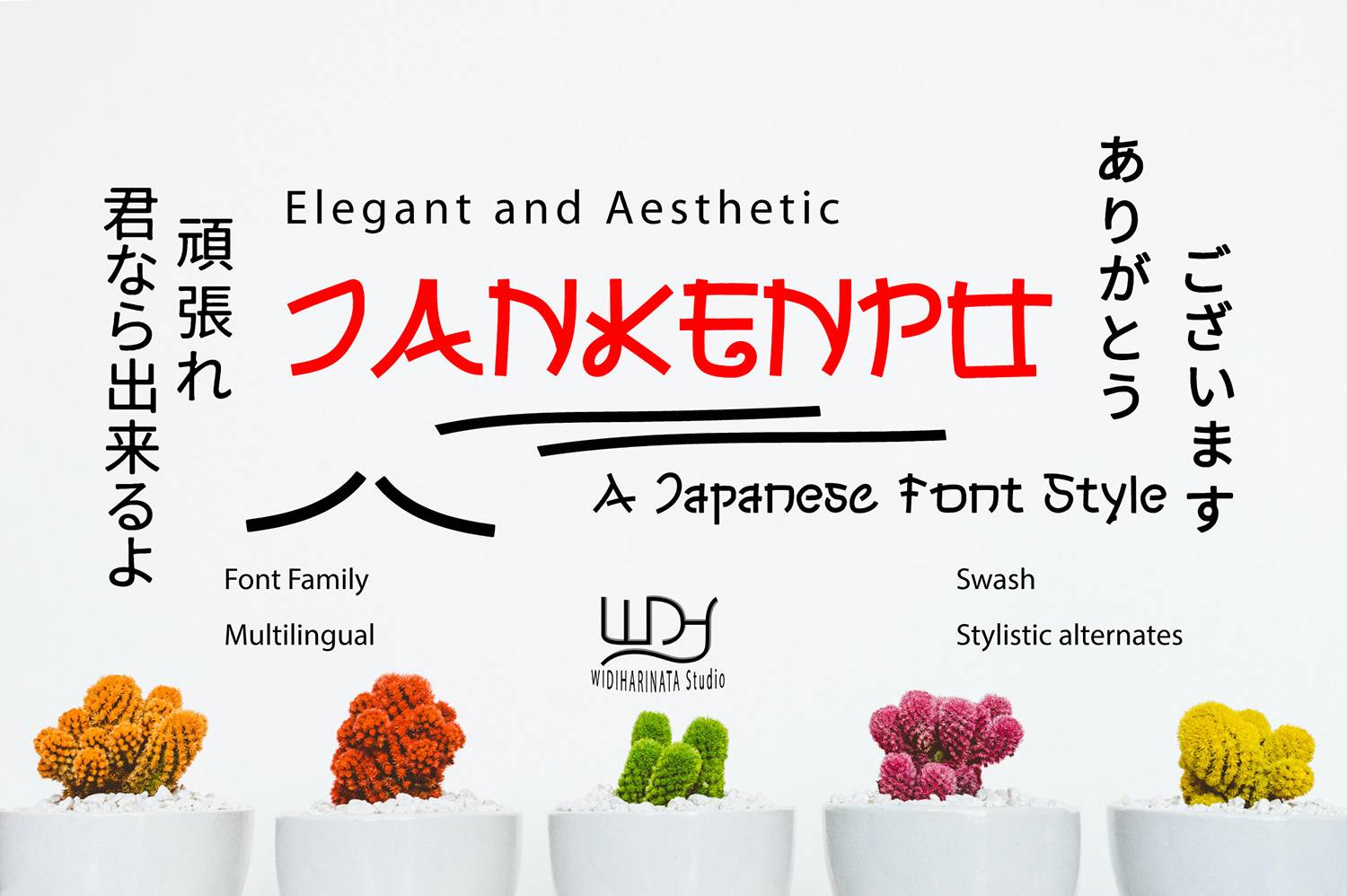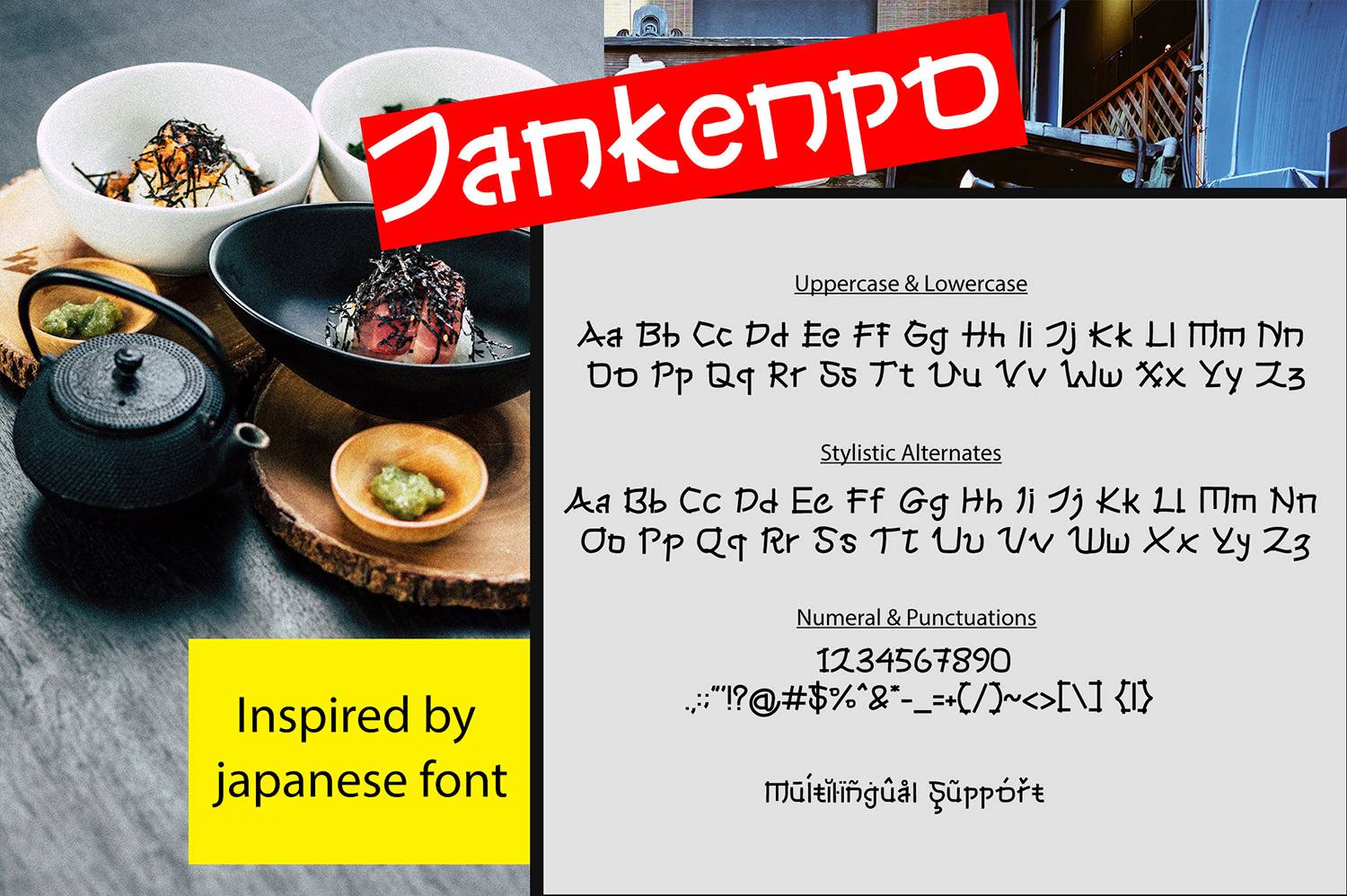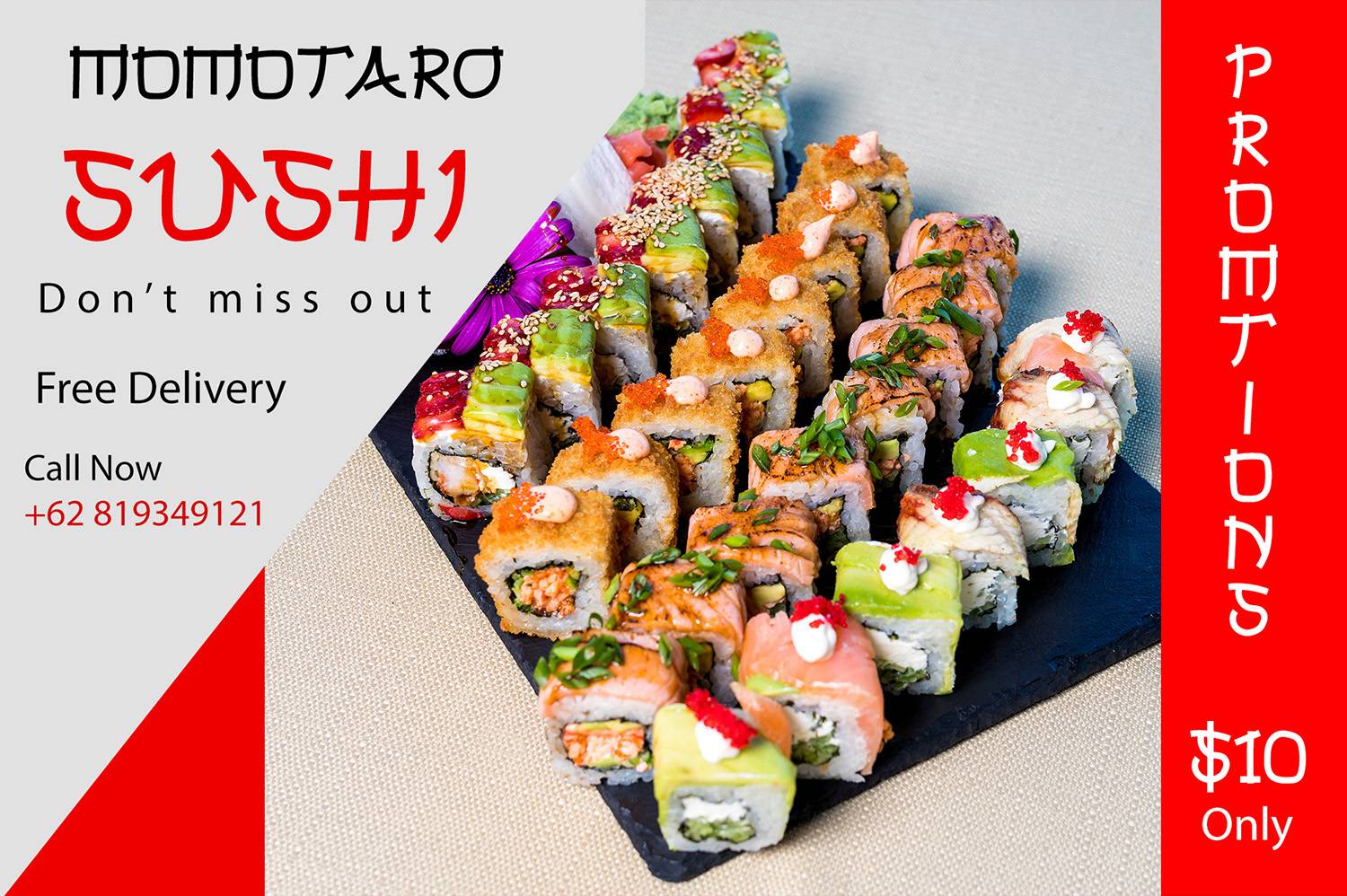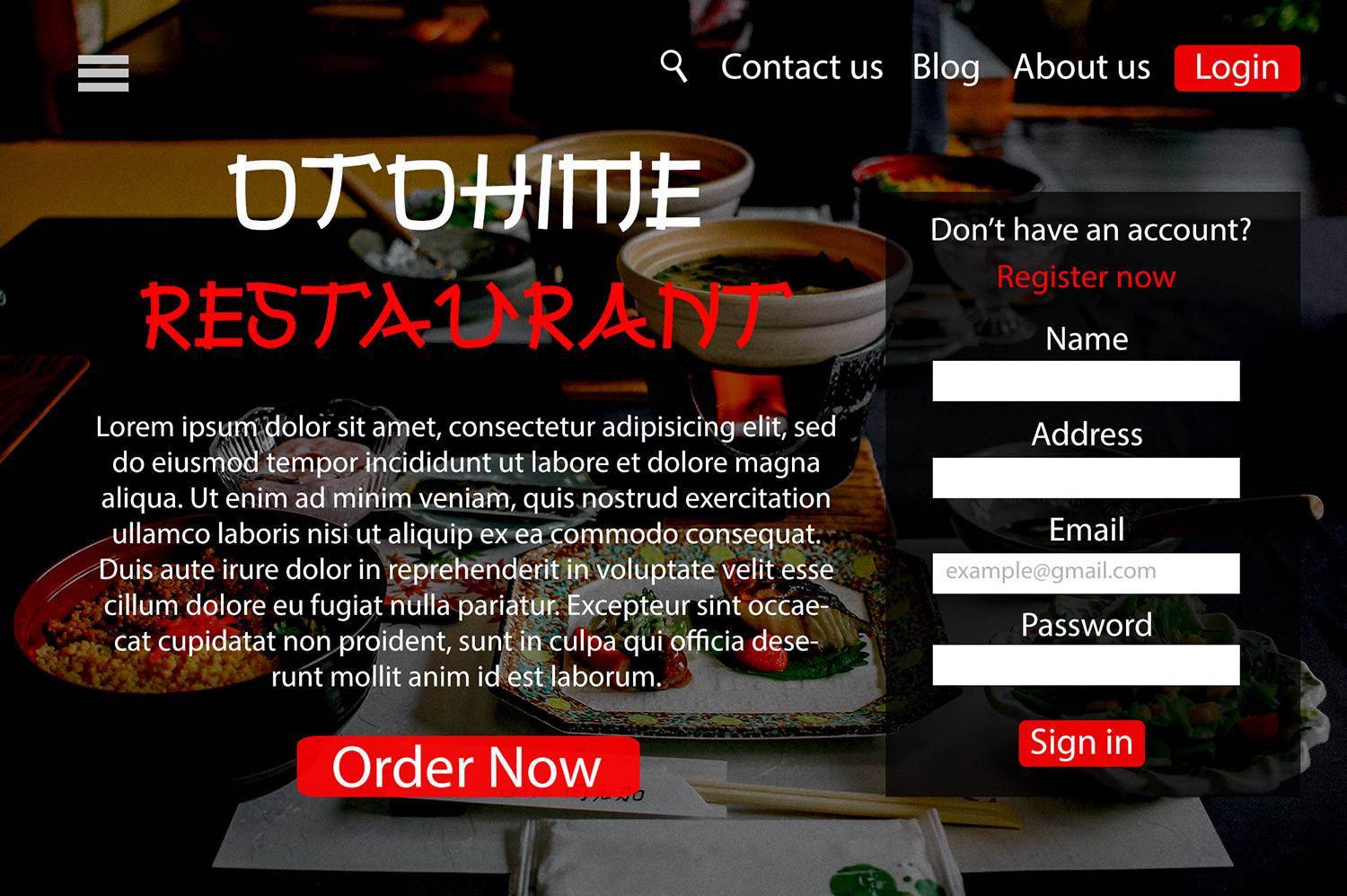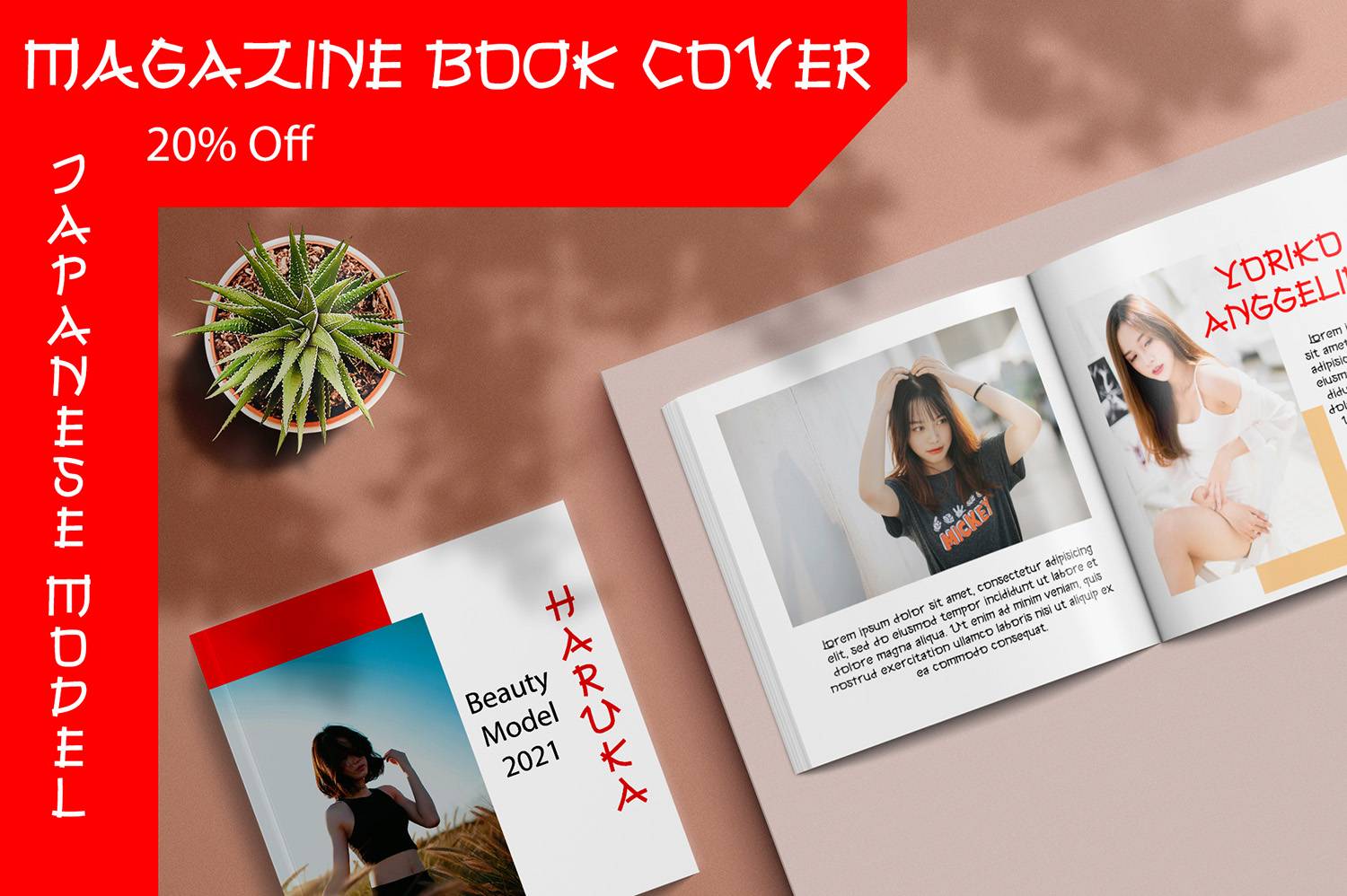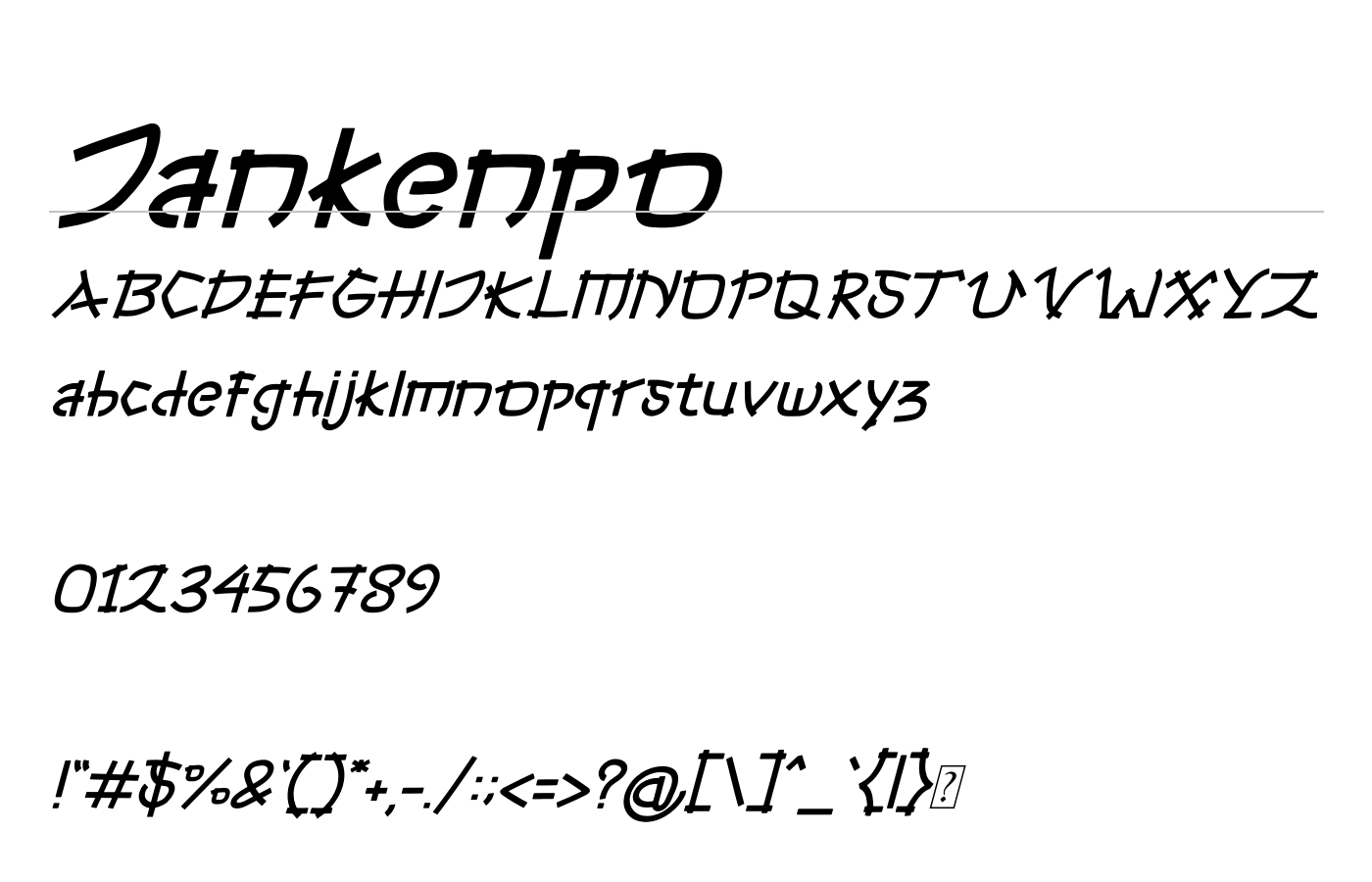
Jankenpo is a dynamic, slightly italicized sans serif font with a lively, hand-drawn feel. Its narrow, uneven strokes and playful letterforms give it an energetic and informal personality, making it well-suited for creative projects, casual branding, and eye-catching headlines. This font works best where a sense of movement and uniqueness is desired, adding a quirky, approachable touch to designs.
| Font family | Jankenpo Font |
| Designer | I Kadek Widiharinata |